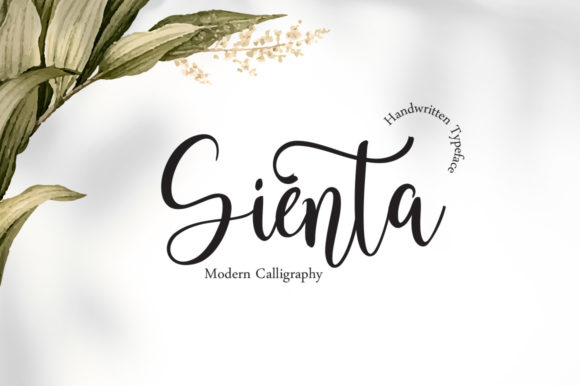
Introducing Sienta Font, a captivating handwritten font that exudes charm and elegance, ready to transform your designs into masterpieces. Its playful and charismatic style dances across your creations, adding a touch of whimsy and uniqueness.
Step into a world of endless possibilities with Sienta Font. Whether you're crafting heartfelt invitations, designing enchanting postcards, or creating logos that speak volumes, Sienta Font is your perfect companion. Its versatility shines through, adapting effortlessly to a myriad of design projects, each one imbued with its own distinct personality.
With Sienta Font, your words take on a life of their own, dancing gracefully across the page. Its flowing curves and delicate strokes evoke a sense of warmth and approachability, drawing your audience in and capturing their hearts. Let Sienta Font be your muse, inspiring you to create designs that resonate with emotion and leave a lasting impression.
Embrace the beauty of Sienta Font and elevate your designs to new heights. Its charming personality and versatility will captivate your audience, leaving them enchanted with your creations. Experience the magic of Sienta Font today and unleash the boundless potential of your imagination.